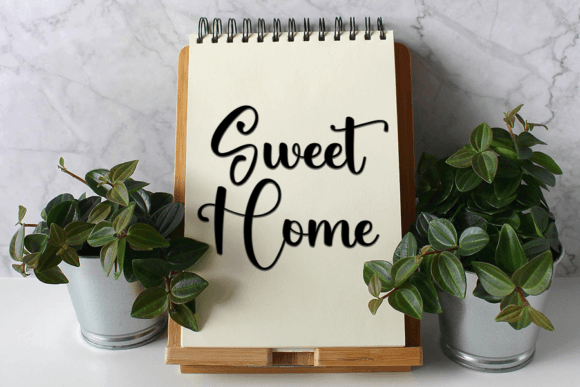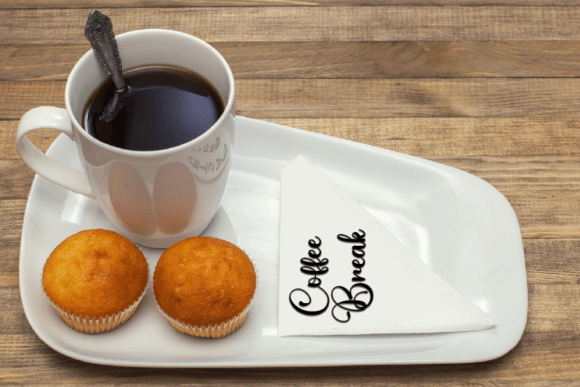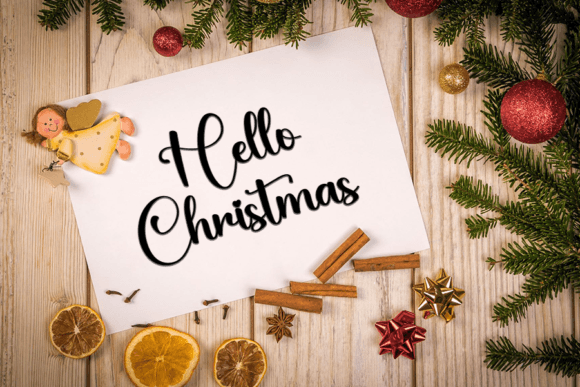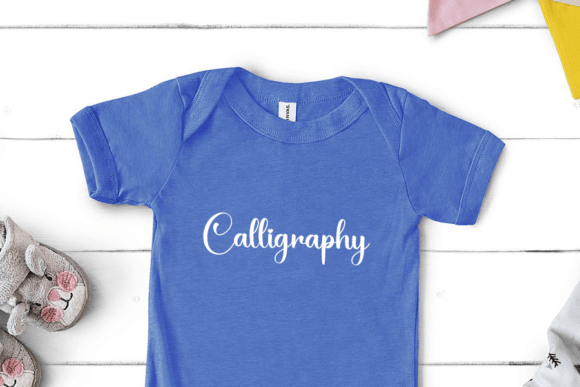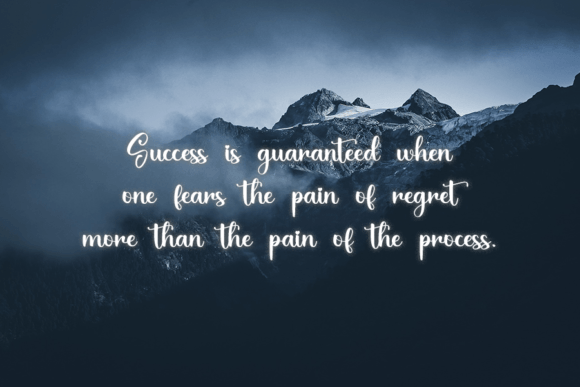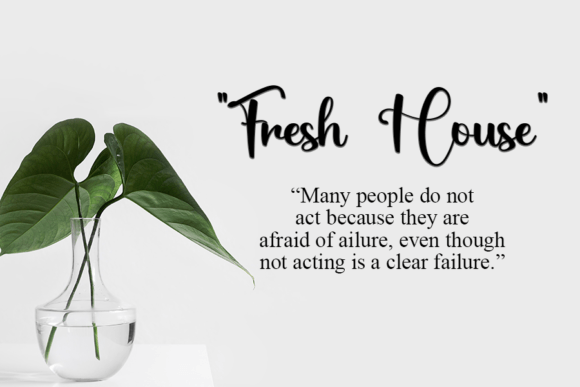
The Digital Font: A Cool and Modern Handwritten Favorite
I still remember the design project that led me to discover the Digital font. I was working on a craft project, making personalized greeting cards for a friend’s birthday, and I was struggling to find the perfect font. I wanted something modern, yet handwritten and personal. That’s when I stumbled upon Digital, and it quickly became my go-to font for all sorts of creative projects.
So, what makes Digital so special? Here are a few things I love about this font:
- ✨ **Modern and fresh feel**: Digital has a super contemporary look that’s perfect for digital designs, presentations, and crafts.
- ✅ **Versatile**: This font works amazingly well for a wide range of projects, from greeting cards to social media graphics.
- 💫 **Easy to read**: Despite its modern and stylized look, Digital remains highly legible, even at smaller font sizes.
Of course, no font is perfect, and there are a few quirks to keep in mind:
- 🤔 **Limited formal styles**: Digital is primarily a casual, handwritten font, so it might not be the best fit for very formal or traditional designs.
- ⚠️ **Some letter variations could be improved**: Occasionally, certain letter combinations might look a bit awkward or less polished.
One of the best things about Digital is its support for OpenType features. This means you can access a range of stylistic alternates, glyphs, and other typographic goodies to really customize your text. For example:
- **Stylistic Sets**: Switch between different stylistic variations of letters and numbers.
- **Glyphs**: Access special characters, ligatures, and other unique typographic elements.
The Story Behind Digital
Digital was created with the goal of crafting a modern, versatile font that would meet the needs of designers, crafters, and hobbyists alike. The designer aimed to create a font that felt both fresh and approachable, perfect for a wide range of creative projects. While the exact story behind Digital might be fictional, its impact on the design community is very real.
| Font Name | Digital Font |
| Author | PAYJHOshop |
| What makes Digital a good choice for crafts? | Digital’s modern and fresh look, combined with its ease of use and versatility, make it perfect for craft projects like card-making, scrapbooking, and DIY signage. |
| Is Digital suitable for body text? | While Digital is highly legible, it’s primarily designed for display and headline text. For longer body text, you might prefer a more traditional serif or sans-serif font. |